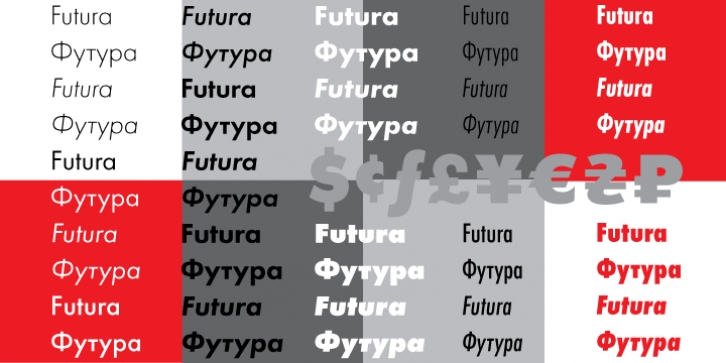
Futura was designed for Bauer company in 1927 by Paul Renner.
This is a sans serif face based on geometrical shapes, representative of the aesthetics of the Bauhaus school of the 1920s-30s. Issued by the Bauer Foundry in a wide range of weights and widths, Futura became a very popular choice for text and display setting.
Originally Cyrillic version of eight styles was developed at ParaType (ParaGraph) in 1995 by Vladimir Yefimov. Additional Cyrillic styles were developed in 2007 by Isabella Chaeva. Simultaneously, the old eight styles were partly revised to match the whole family.
Now the new Futura is an uniform type system, consisting of seven weights with corresponding obliques plus eight condensed styles. All these fonts are coordinated in letterforms, metrics, and weights to work better together.